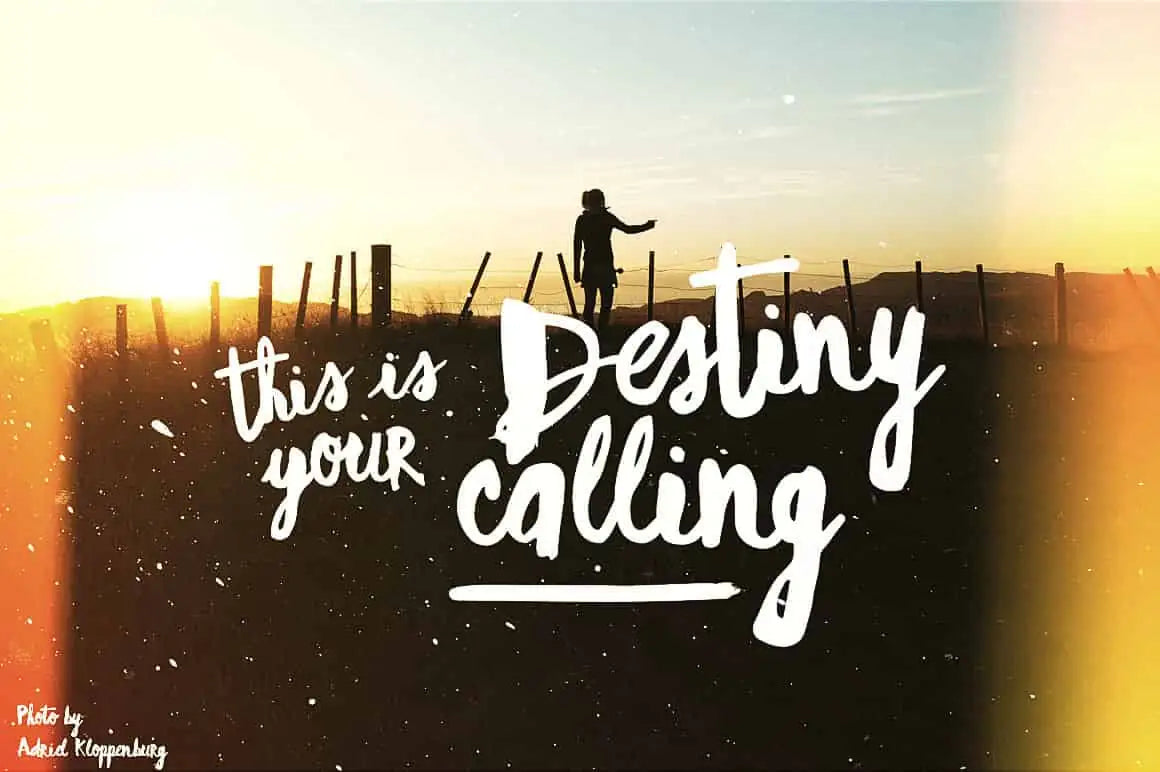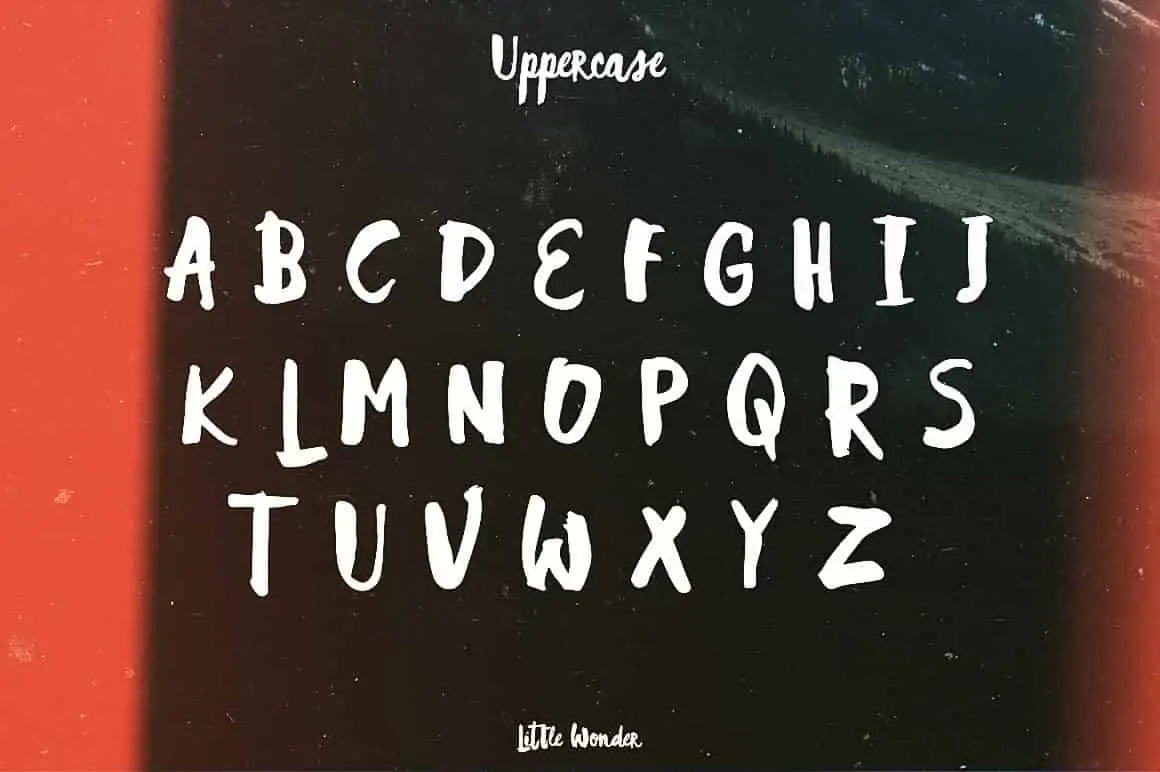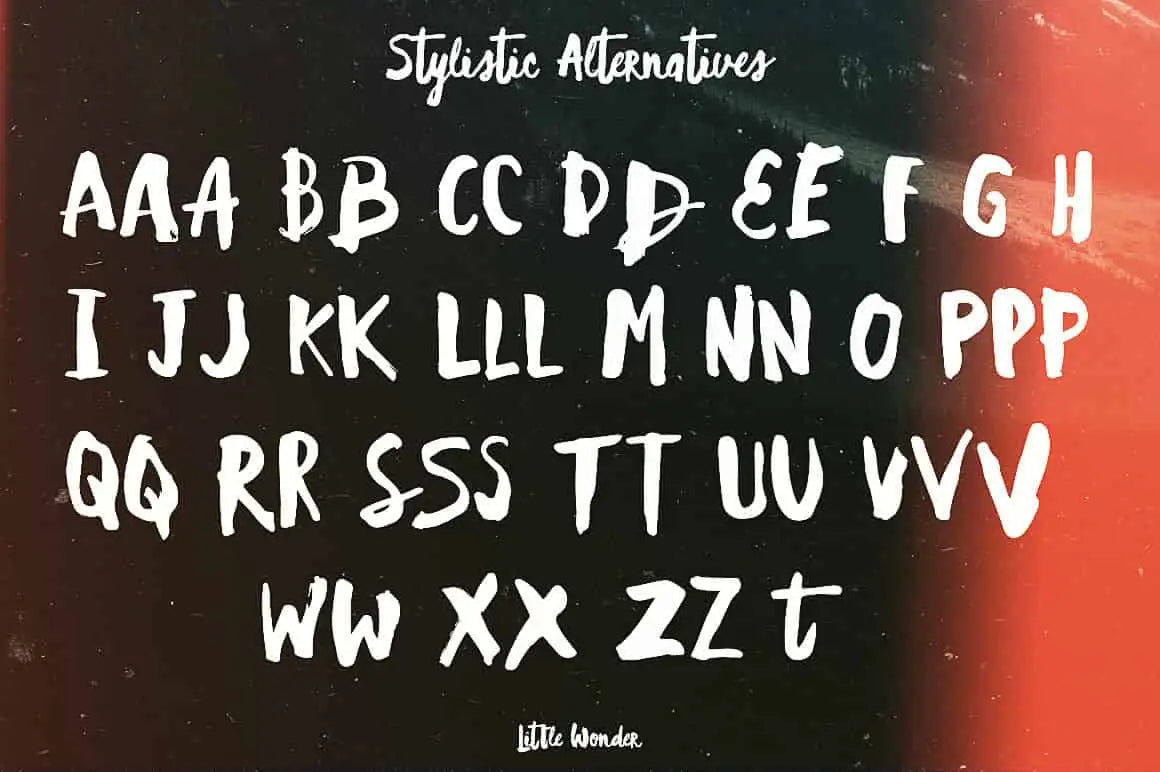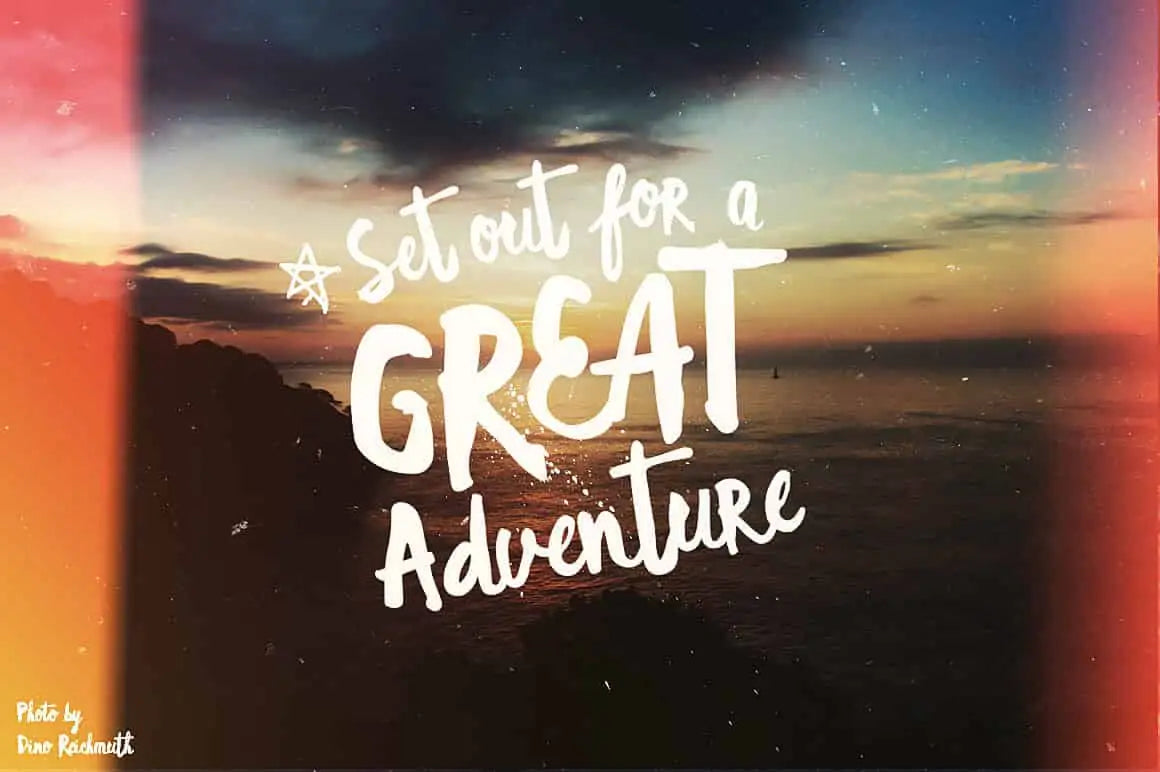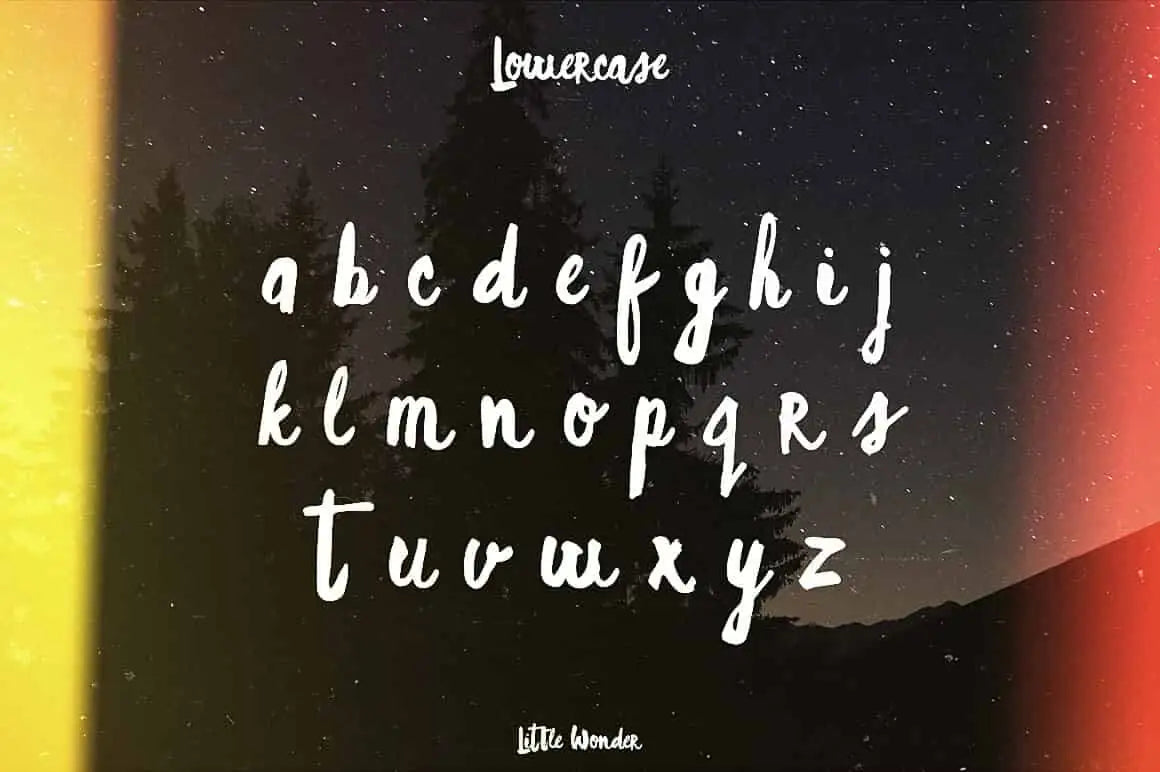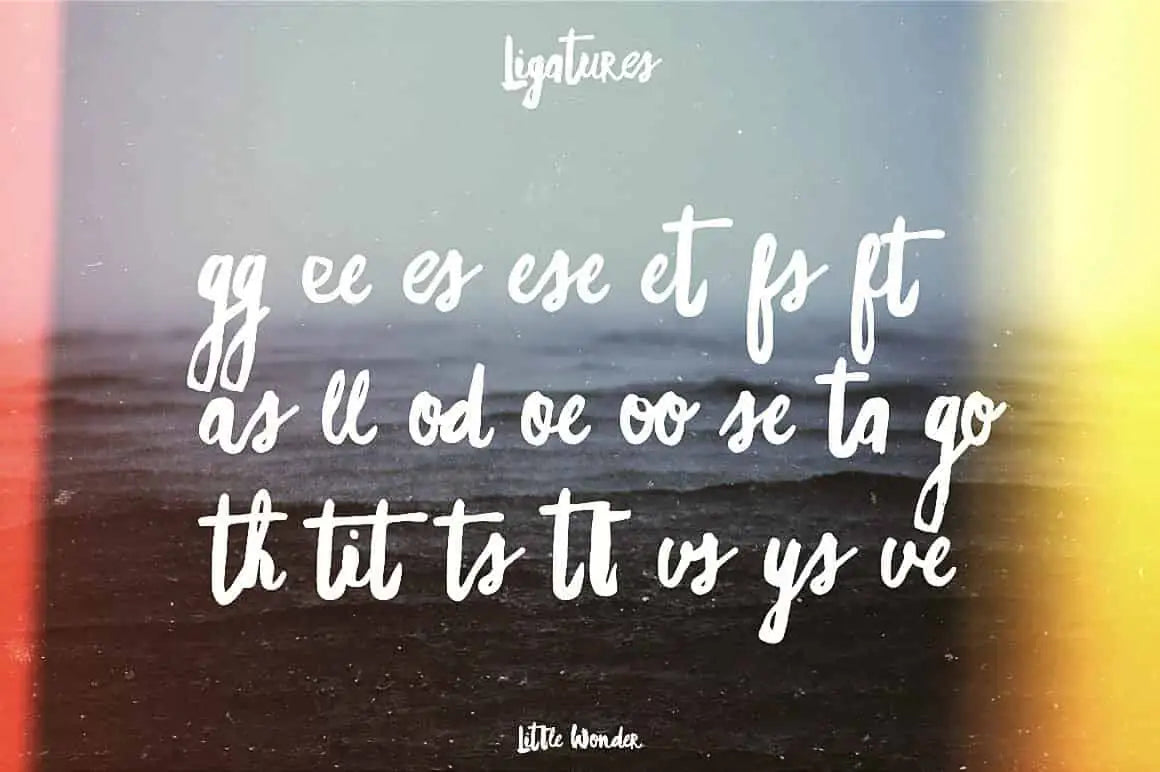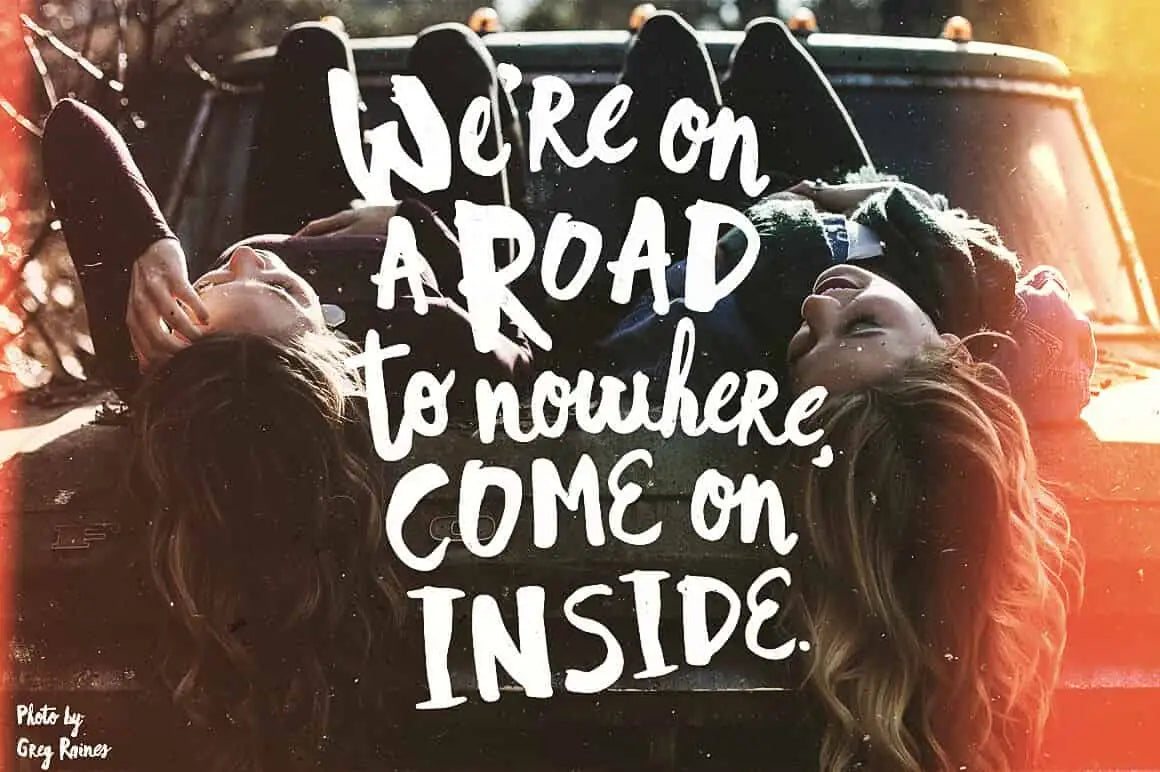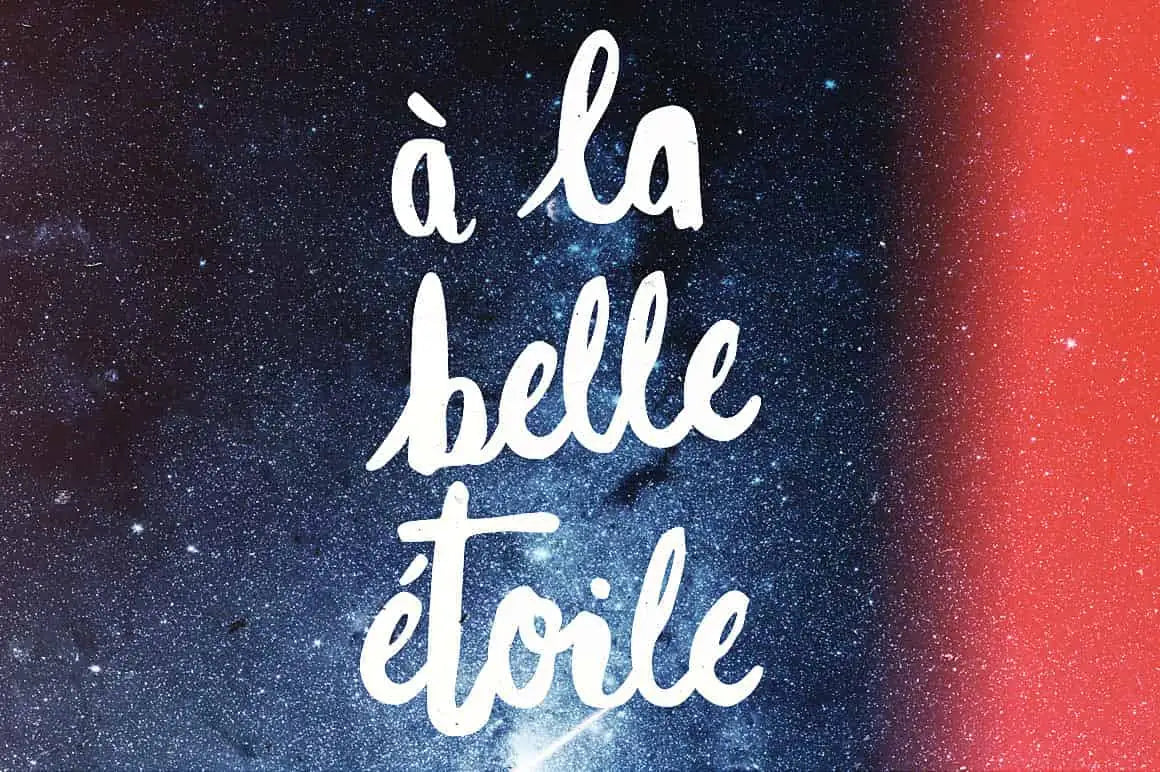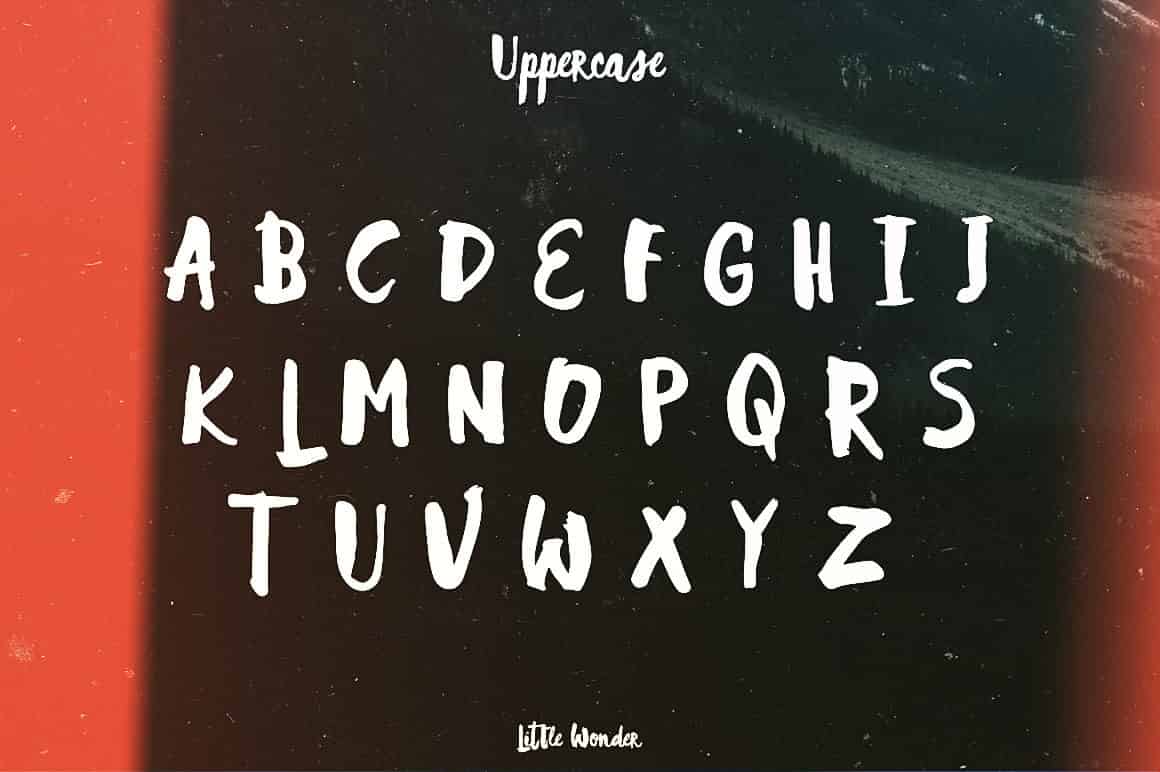
Little Wonder
About Little Wonder
A little less perfect. A lot more wonderful.
Little Wonder is a handpainted brush script font created with a single watercolour brush, then painstakingly digitised into a working typeface.
Most brush scripts behave themselves.
Little Wonder doesn’t.
It has feminine charm, natural movement and just enough chaos to make things interesting. A ravishing beauty with a turbulent character. Elegant, kooky and happily imperfect.
Made for memorable things
Little Wonder looks particularly good over photography and brings a casual, handmade quality to:
- Wedding stationery
- Save-the-date cards
- Invitations and greetings cards
- Packaging
- Posters
- Branding
- Celebrations of every kind
Use it whenever a design needs warmth, personality and a decorative twist.
Never quite the same twice
Real handwriting doesn’t repeat itself perfectly. Neither should a good script font.
Little Wonder includes alternative letters, initial letterforms and terminal forms that help words flow more naturally. Turn on OpenType contextual alternates and the lettering changes as you type, giving your work a more varied, handmade appearance.
If Little Wonder were famous, it would be more Evangeline Lilly than Elizabeth Taylor.
Timeless elegance. Less predictable.
What’s included
- One weight: Regular
- Standard ligatures
- Initial and terminal forms
- Numerous alternative letters
- Uppercase and lowercase characters
- Numbers
- Punctuation and symbols
- Western European characters
- Central European characters
- South-Eastern European characters
A little extra wonder
A customer asked whether the ornaments used in the preview images were included.
They are now.
I created 52 decorative ornaments and mapped them to A–Z and a–z for quick access.
Sometimes the best ideas begin with one good question.